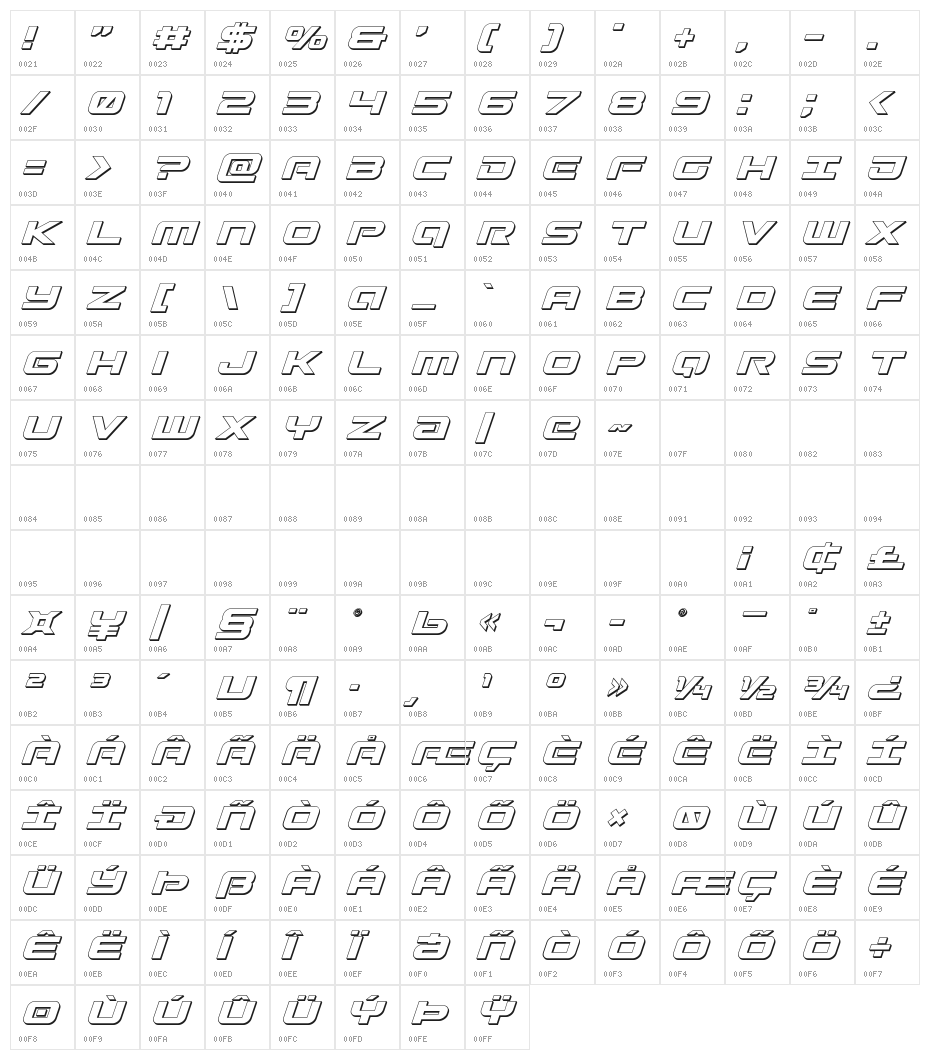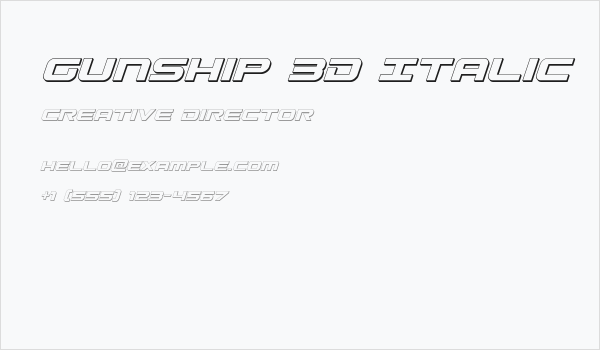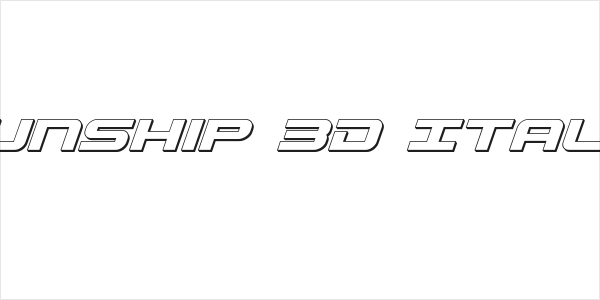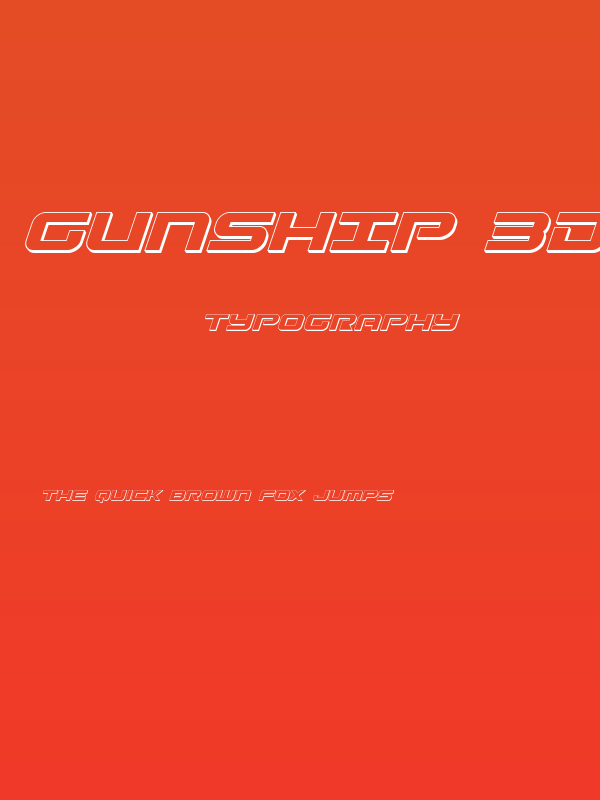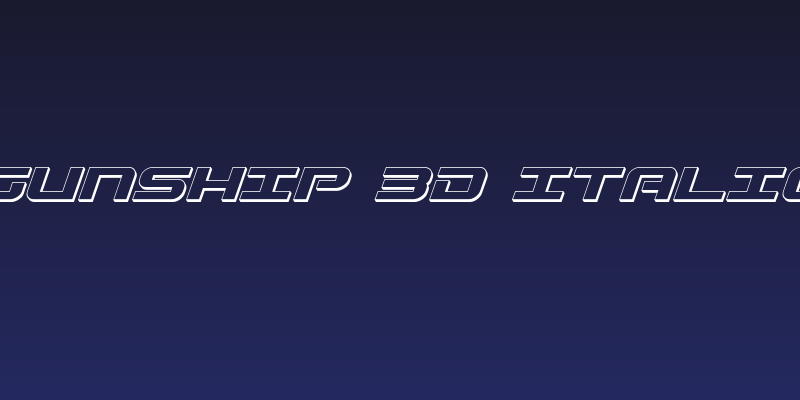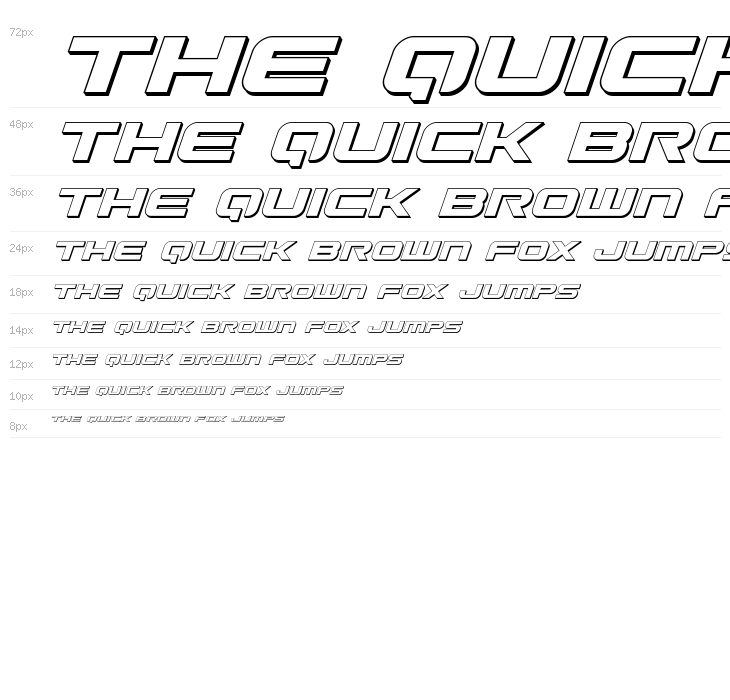
Gunship 3D Italic Font
Gunship 3D Italic Description
This font features a futuristic and dynamic design, characterized by its bold, geometric letterforms with a three-dimensional effect. The italicized style adds a sense of motion and speed, making it ideal for projects that require a modern and edgy look. The characters have a consistent stroke width, contributing to a uniform appearance. The font includes both uppercase and lowercase letters, numerals, and a variety of special characters, ensuring versatility in usage. Its distinct style is suitable for creating impactful headlines, logos, and branding materials that aim to capture attention with a contemporary flair.
| Proposed Projects | Ideal for sci-fi themed posters, video game titles, tech company logos, and dynamic branding. |